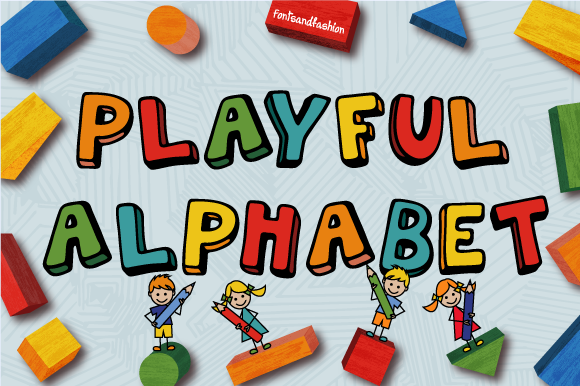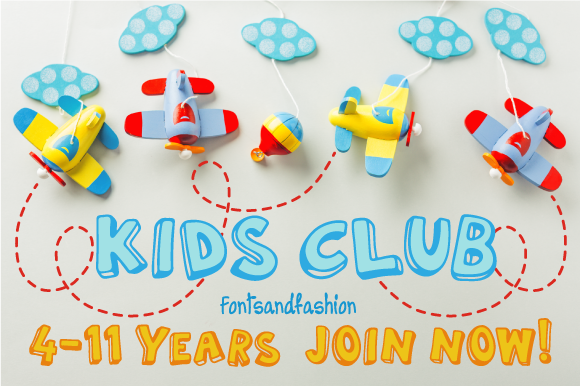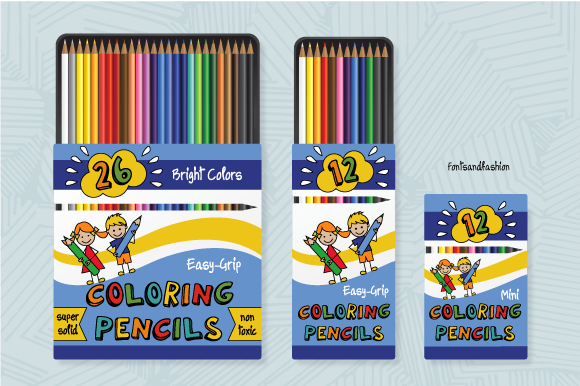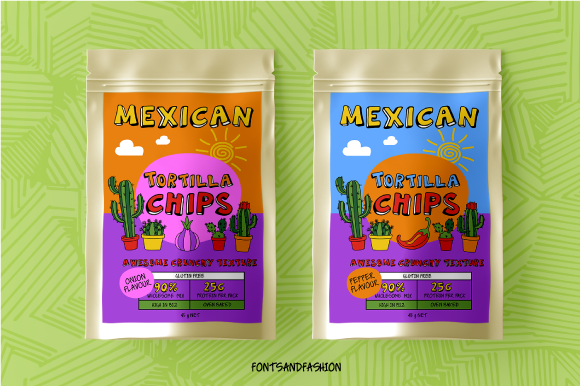
Playful Alphabet Font
About the Playful Alphabet Font
Presenting Playful Alphabet Font, a unique and stylish typeface that will make your work stand out. Playful Alphabet is a cute and fun display font. It embodies playfulness and authenticity and is the perfect choice for any children activity or school project. Add this chunky lettered font to your designs and notice how it makes them come alive!
Playful Alphabet thrives in display contexts such as headlines, posters, and branding elements for children’s products or playful brands. Its chunky letterforms work well for short, impactful statements but are less suitable for body text or long paragraphs due to limited readability. Avoid using it in UI contexts where clear legibility is paramount.
This font’s core personality is undeniably cheerful and friendly. It projects a sense of youthful energy and approachability. To complement this, consider pairing it with a clean sans-serif like Open Sans for body text, or a slightly more playful script font like Pacifico for a layered effect in logos or invitations. A geometric sans-serif would offer a modern contrast, creating visual interest.
For a more sophisticated feel, a subtle serif like Lora could balance Playful Alphabet’s boldness. Ultimately, the best pairing will depend on the overall design goal, but ensuring readability in supporting typefaces is key.
Playful Alphabet Font Usage Examples
Playful Alphabet Font Example